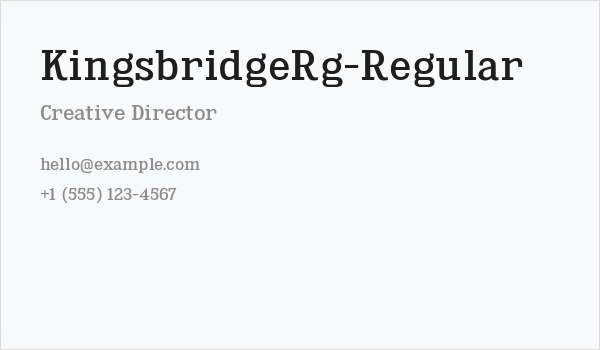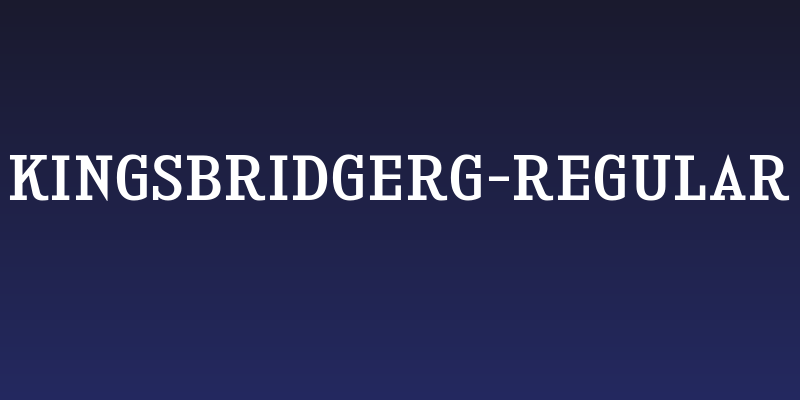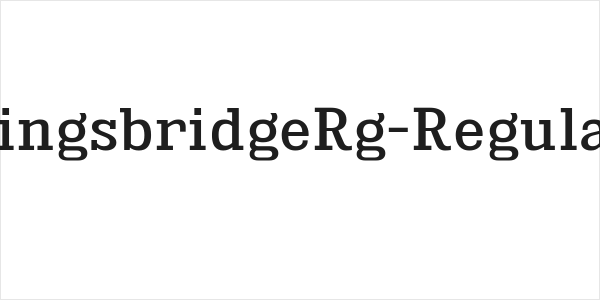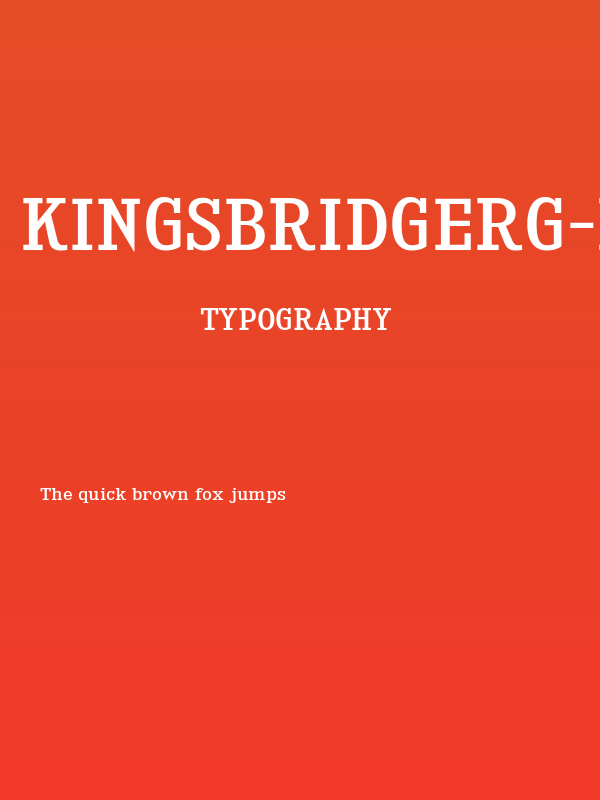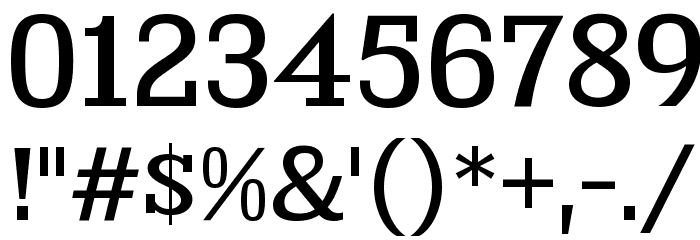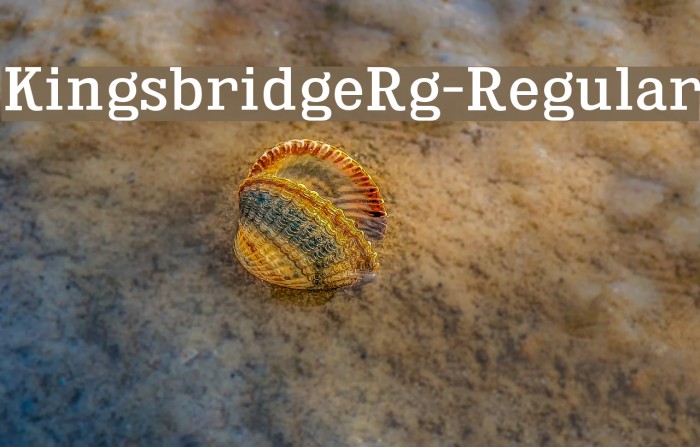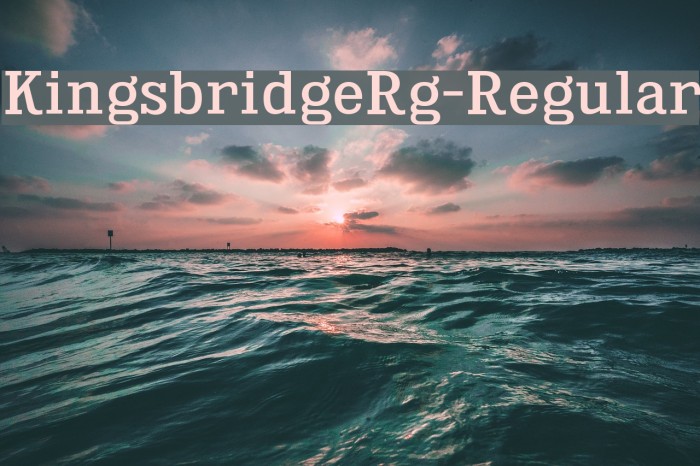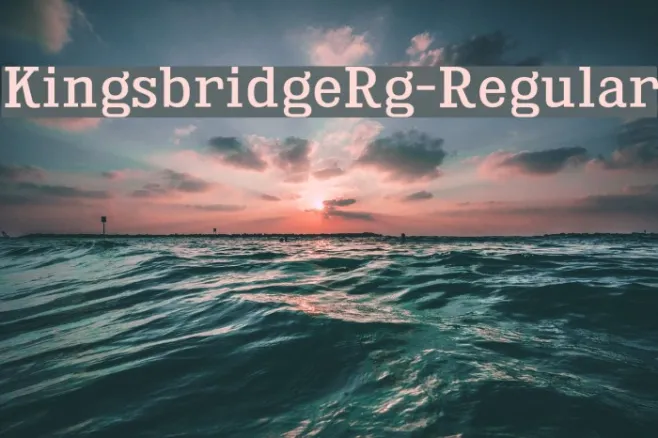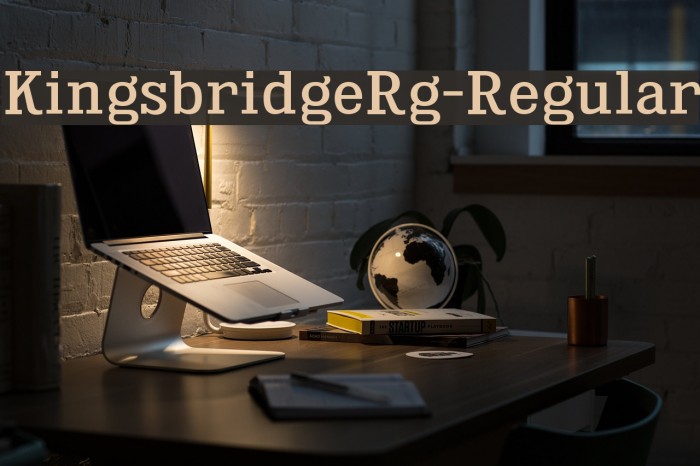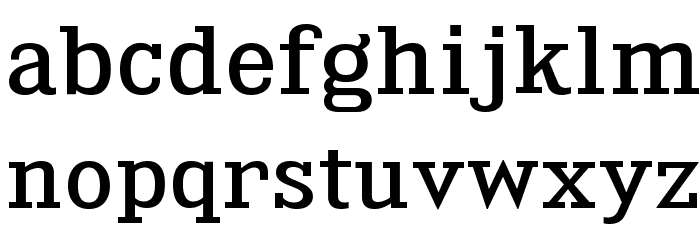
KingsbridgeRg-Regular Font
KingsbridgeRg-Regular Description
This typeface features a classic serif design with a modern twist, characterized by its strong, bold strokes and slightly condensed letterforms. The serifs are pronounced, giving it a traditional feel, yet the overall structure maintains a contemporary elegance. The uppercase letters are tall and commanding, while the lowercase letters are well-proportioned, offering a harmonious balance. The numerals are clear and distinct, making them highly legible. Special characters are crafted with precision, maintaining the font's cohesive style. This font is versatile, suitable for both print and digital media, and can be used effectively in various design contexts.
| Proposed Projects | Ideal for editorial design, book covers, branding, and corporate identity projects. |